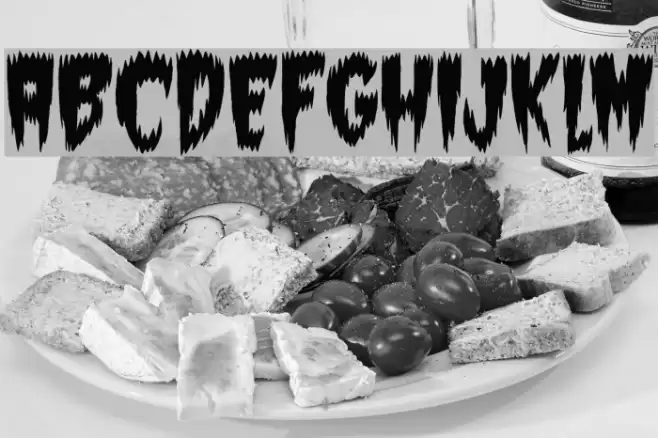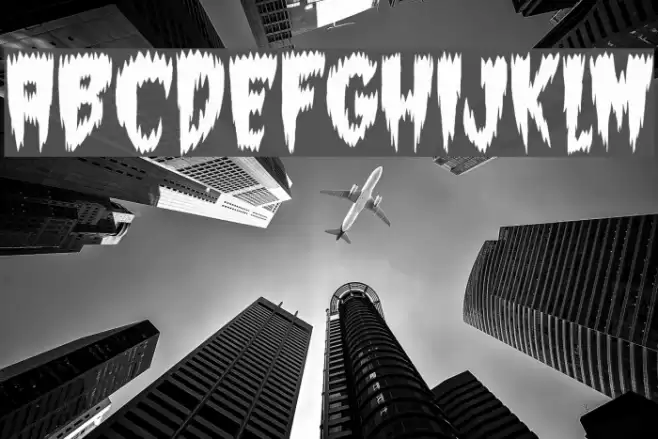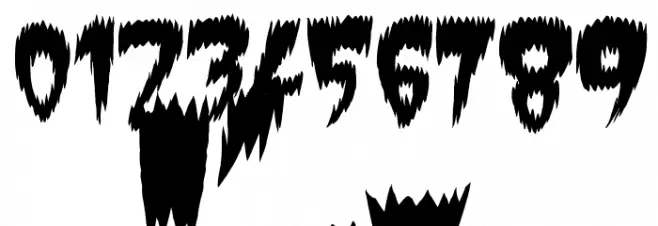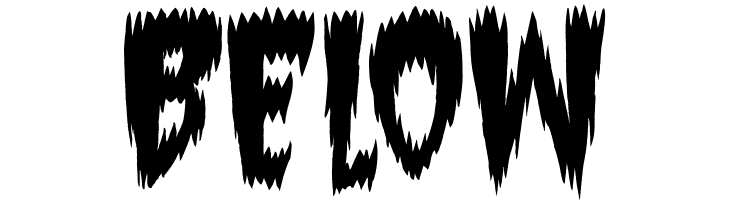
Super Weird Font
Super Weird Description
This font features a highly distinctive and jagged design, reminiscent of sharp, irregular edges or spikes. The characters are bold and dramatic, with a strong visual impact that suggests a sense of urgency or intensity. The uppercase and lowercase letters maintain a consistent style, with each character appearing as if it is carved or torn from a solid block. The numbers and special characters follow the same aesthetic, ensuring uniformity across the entire set. This font's unique appearance makes it ideal for projects that require a bold statement or a touch of the unconventional.
A bold, jagged font with sharp, irregular edges for dramatic impact from Uncategorized fonts.
- Proposed Projects: Ideal for Halloween-themed designs, horror movie posters, edgy branding, or any project needing a bold, unconventional look.